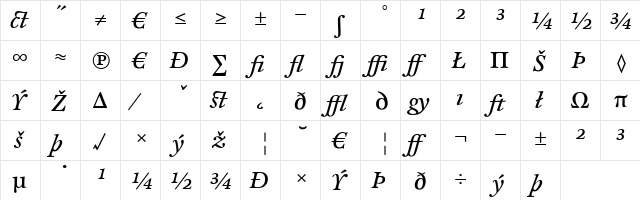
CliffordSix Italic
| Foundry | Akira Kobayashi, . Published by FontShop International. FontFont Release |
Design Context for CliffordSix Typeface
CliffordSix takes a measured approach to typography — its balanced proportions and neutral character make it a reliable workhorse for both digital and print work. The slanted form adds forward momentum and visual energy.
Pro Tip: Try CliffordSix for annotation and caption copy alongside an upright companion — the contrast in angle creates a dynamic but ordered typographic system.